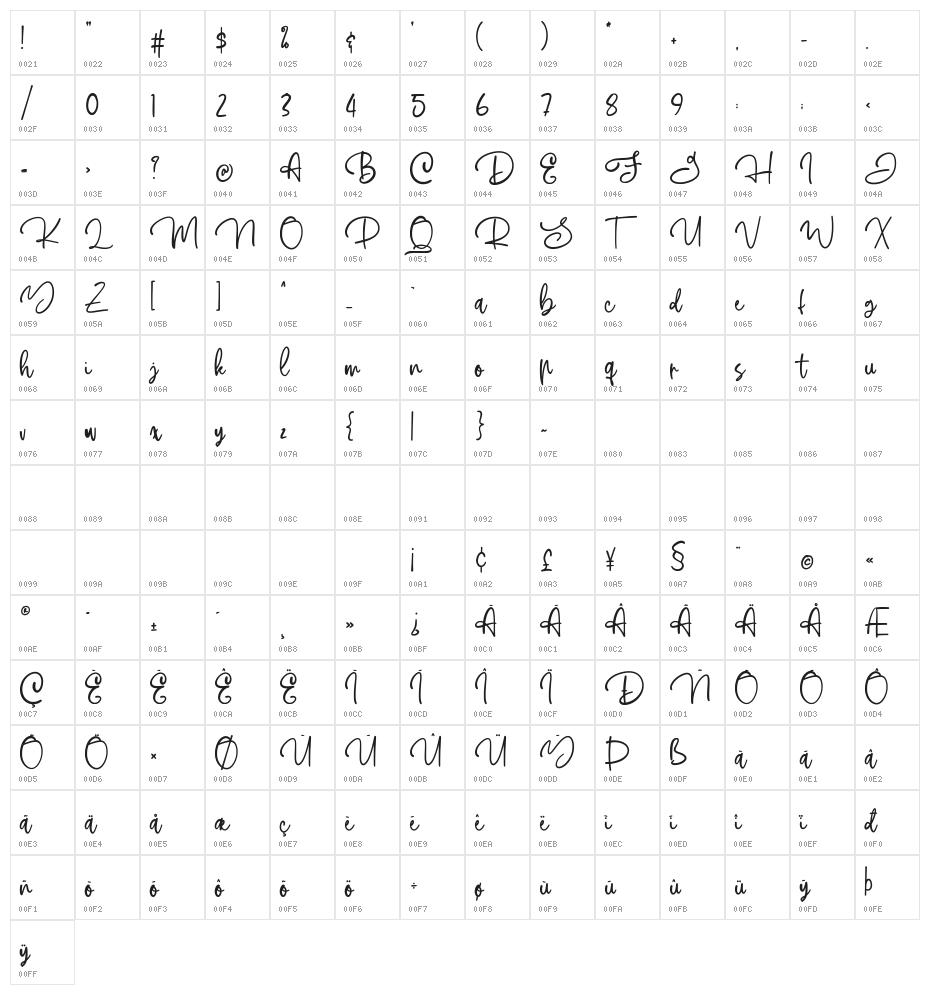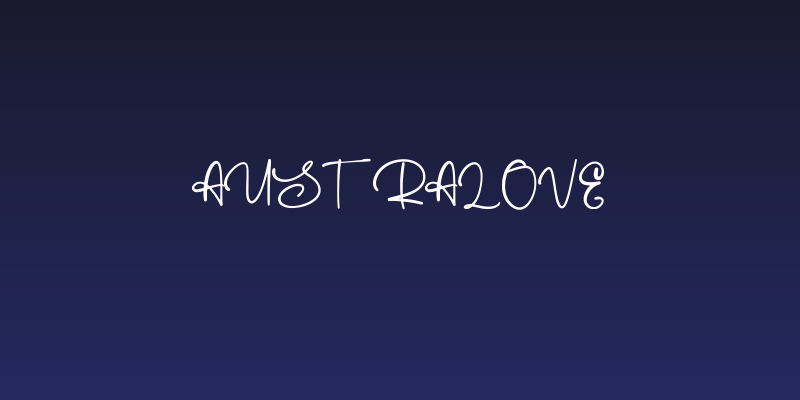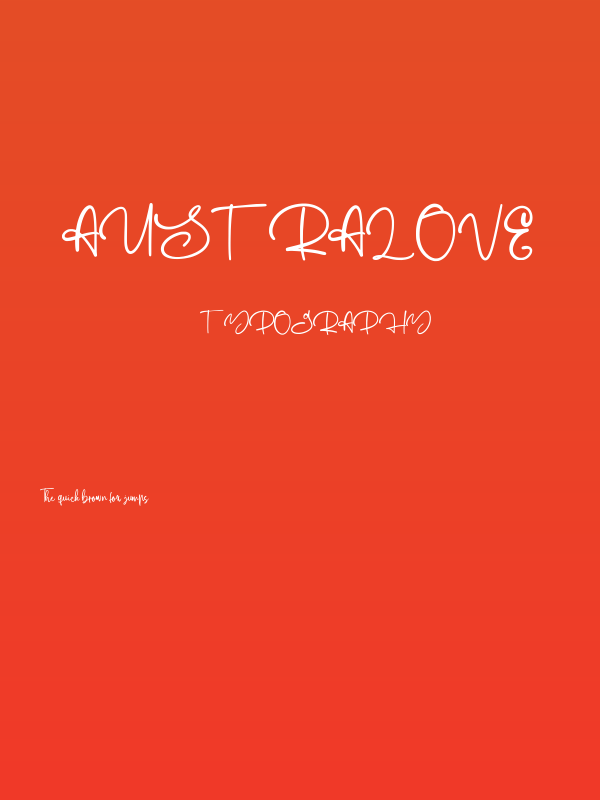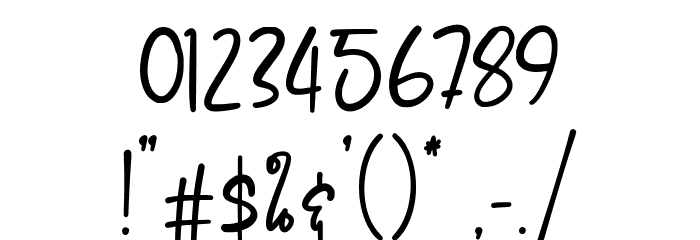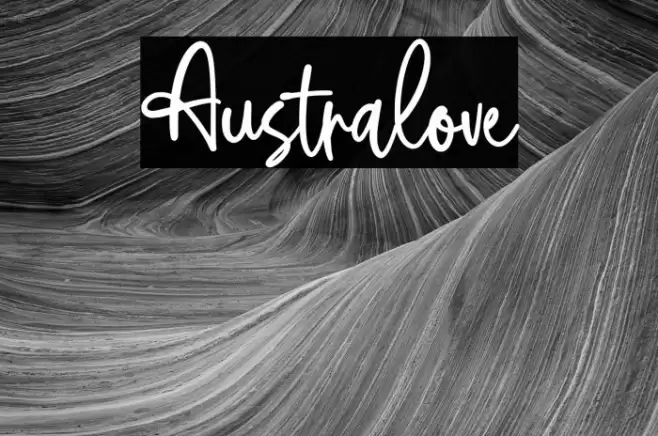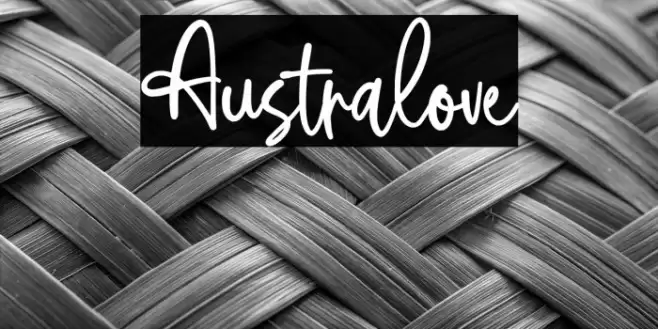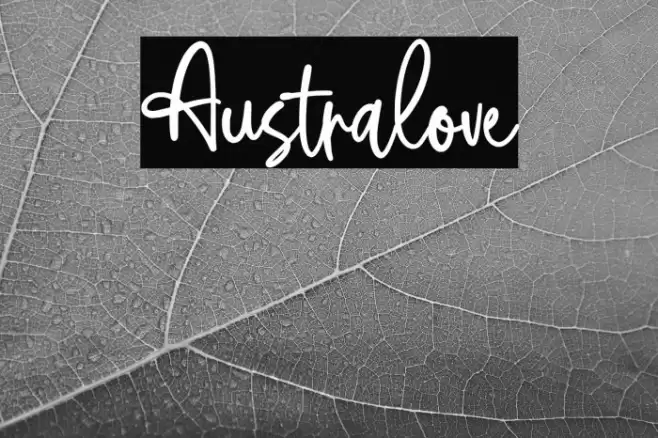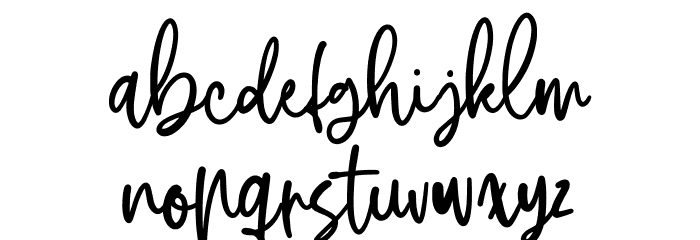
Australove Font
Australove Description
This font features a playful and elegant script style with a handwritten appearance. The uppercase letters are characterized by flowing loops and curves, giving them a whimsical and artistic feel. The lowercase letters maintain a consistent flow, with smooth connections between characters, enhancing the handwritten aesthetic. The numerals are clear and legible, with slight variations in stroke thickness that add to the font's charm. Special characters are creatively designed, maintaining the overall style of the font. This font is perfect for projects that require a personal touch, such as invitations, greeting cards, and branding materials.
| Proposed Projects | Ideal for invitations, greeting cards, branding, and personal projects. |